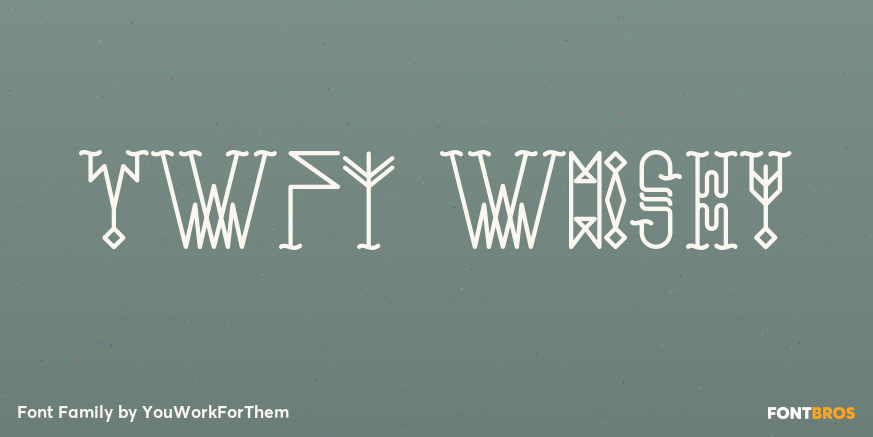
YWFT Whisky
About YWFT Whisky
The Precursors. The Founders. The Engineers. Known by many names in popular culture, this colony of erudite masters from Long Before were as style-conscious as they were technically adept, and their written glyphs certainly might have resembled YWFT Whisky.…